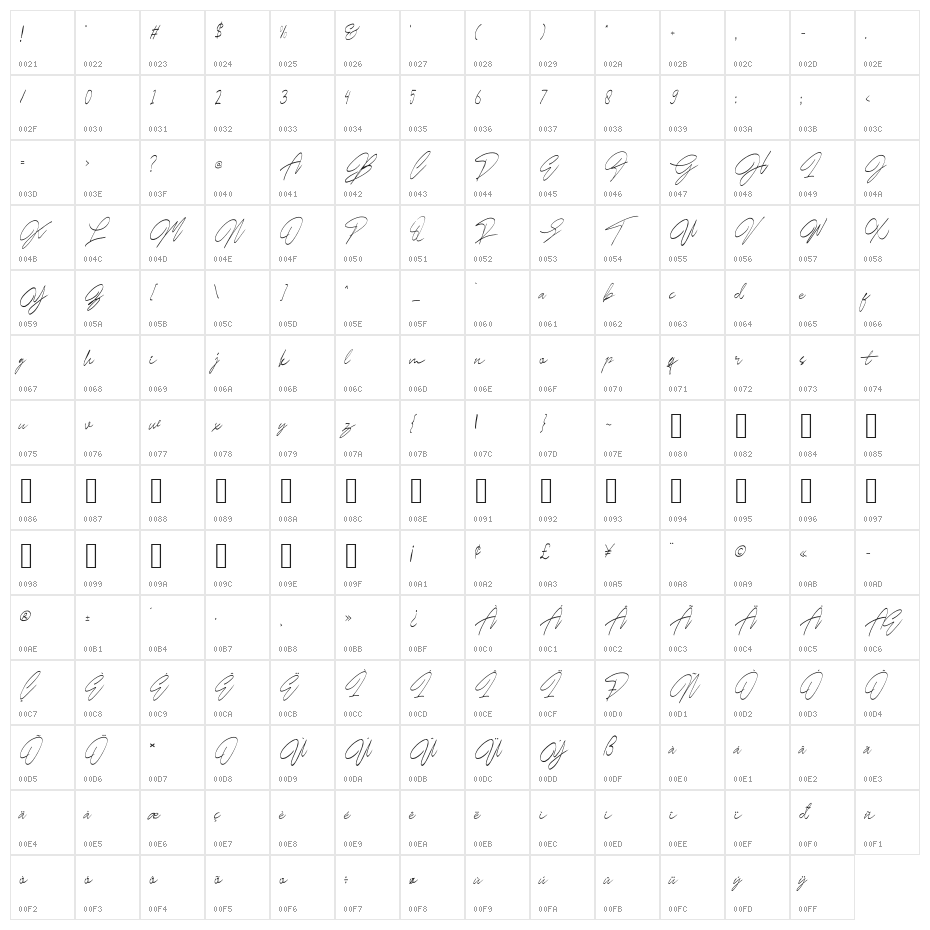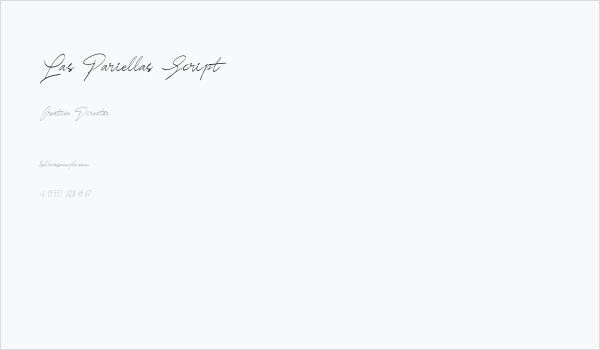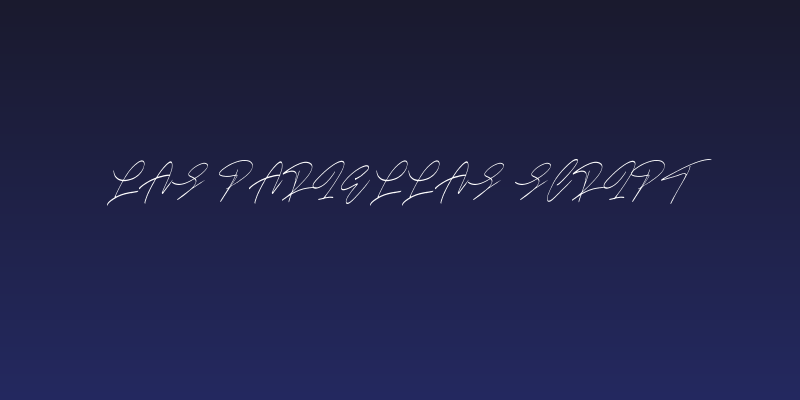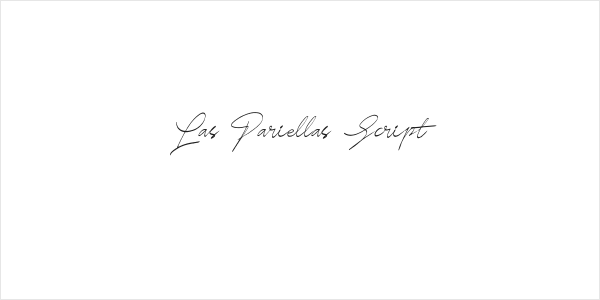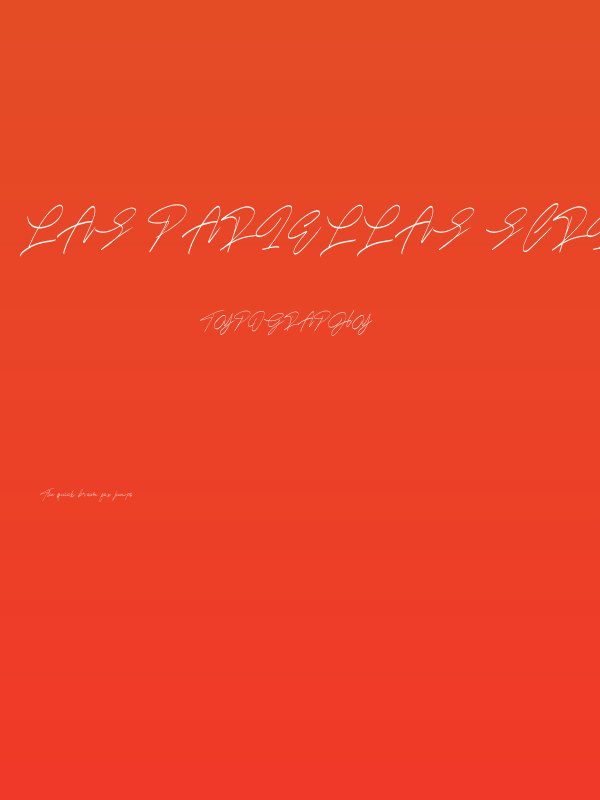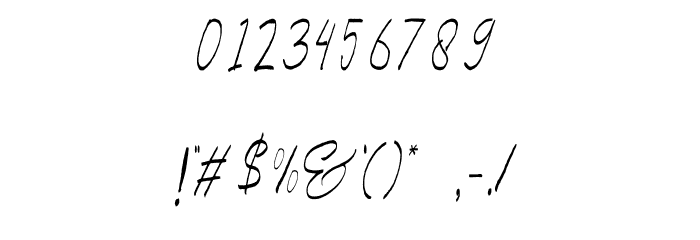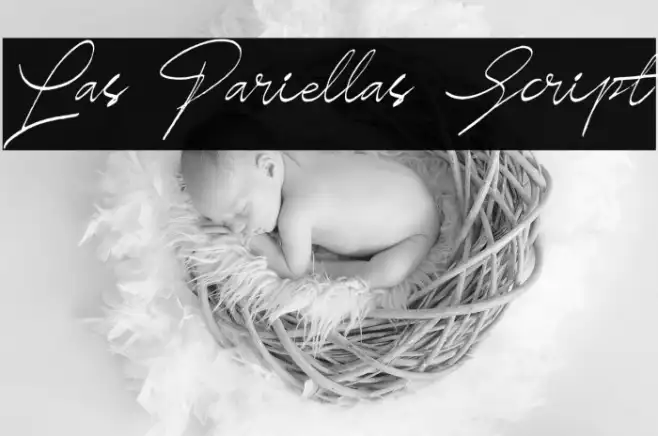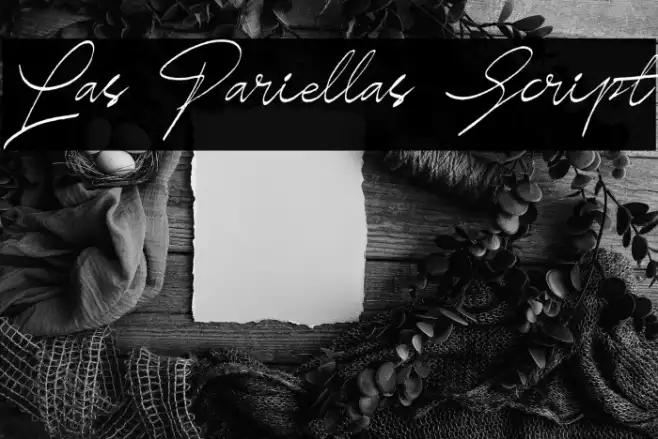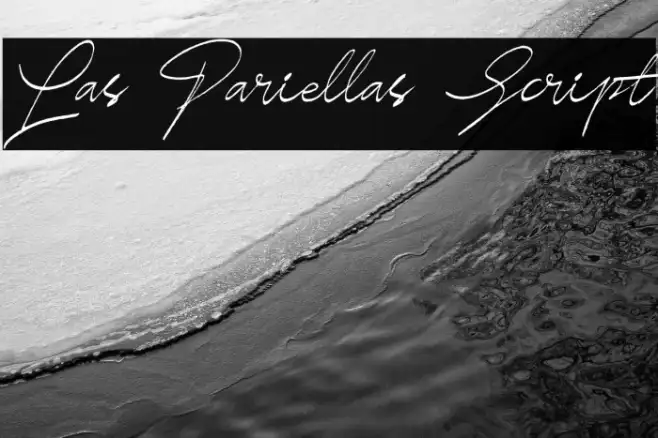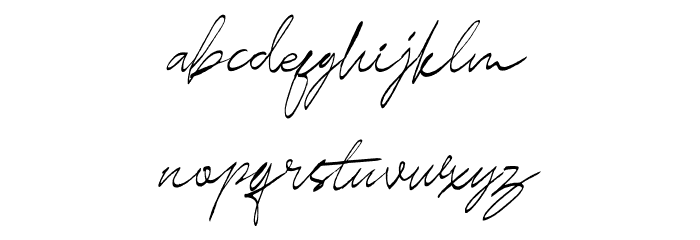
Las Pariellas Script Font
Las Pariellas Script Description
This elegant script font features a flowing, cursive style that mimics natural handwriting. The letters are interconnected with smooth, sweeping strokes, giving it a fluid and dynamic appearance. The uppercase letters are particularly ornate, with elaborate loops and flourishes, while the lowercase letters maintain a more restrained elegance. The numerals and special characters are consistent with the overall script style, ensuring a cohesive look across all text. This font exudes a sense of sophistication and grace, making it ideal for projects that require a personal touch.
| Overall Style | Elegant, Sophisticated |